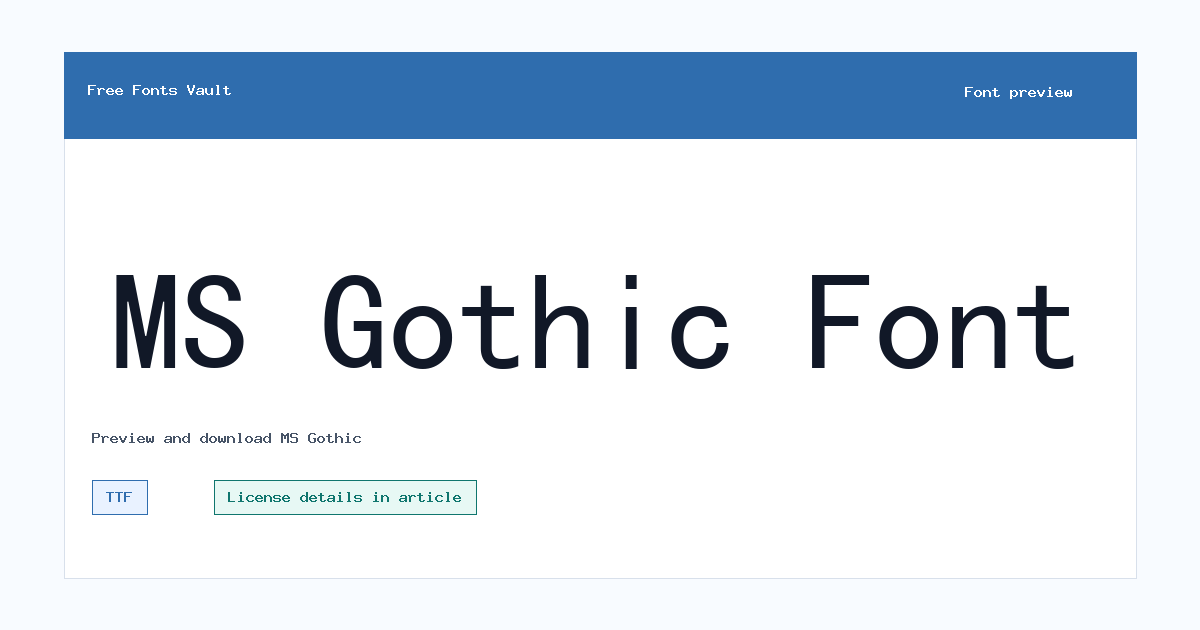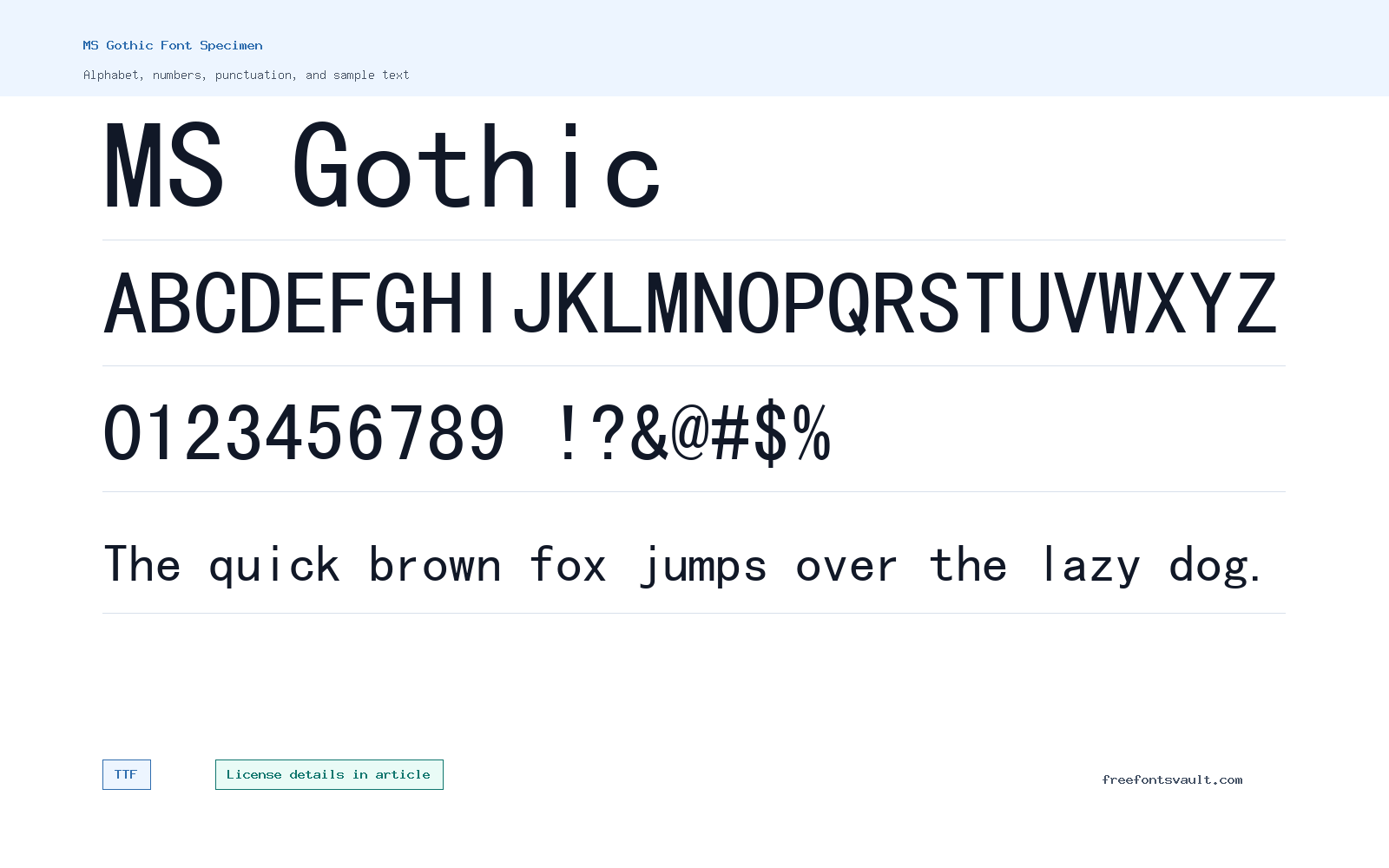
MS Gothic
- Designer Ricoh Company Limited
- Foundry Ricoh Company Limited / Ryobi Imagics Company Limited
MS Gothic font.
MS Gothic is a Japanese gothic-style typeface with plain shapes, even strokes, and a practical screen-friendly feel. It is a good font to test when you need compact Japanese text, simple interface labels, or monospaced Latin characters.
About MS Gothic
MS Gothic was made for Japanese typesetting and uses a sans serif gothic style. Its letterforms are straightforward rather than decorative, with uniform stroke thickness and clean character shapes. Microsoft’s typography documentation describes the family as useful for onscreen legibility, especially in interfaces and lower-resolution display settings. The regular style also keeps Latin letters at a uniform width, which gives English text a more grid-like, technical rhythm than a proportional sans serif.
Use the preview box to test the exact language and text length you plan to set. MS Gothic can work well for short headings, subheads, menu labels, captions, tables, and UI-style samples where alignment matters. For long reading passages, compare it with a proportional Japanese font, because the fixed-width spacing can feel dense in extended text. If you are designing for both Japanese and Latin content, check punctuation, numbers, and mixed-script spacing before downloading.
- Japanese gothic-style design with simple shapes and uniform stroke thickness
- Monospaced Latin letters, useful for aligned text and compact interface samples
- Designed for Japanese text, with support described for kanji, hiragana, katakana, Latin, Greek, Cyrillic, and symbols
- Japanese headings and subheads
- UI labels, menus, and compact screen text
- Tables, code-like labels, and aligned Latin text
- Short bilingual Japanese and English samples
The font credit is listed as Ricoh Company Limited, with Ricoh Company Limited / Ryobi Imagics Company Limited named in the foundry information. Microsoft’s typography documentation also connects the MS Gothic family with Ricoh and Ryobi Imagix credits.
Start by previewing real Japanese phrases, numbers, punctuation, and any Latin text you plan to use. The fixed-width Latin spacing can be helpful for alignment, but it may look rigid in branding or long paragraphs. Keep it for short text, interface-style layouts, and places where clarity matters more than personality.
What kind of font is MS Gothic?
MS Gothic is a Japanese gothic-style sans serif typeface with plain shapes and uniform stroke thickness.
Is MS Gothic good for Japanese text?
Yes, it was designed for Japanese typesetting. It is especially practical for short Japanese text, headings, subheads, and interface-style layouts.
Does MS Gothic use monospaced letters?
Microsoft’s typography documentation describes the Latin letters in MS Gothic as uniform width, so Latin text behaves like monospaced text.